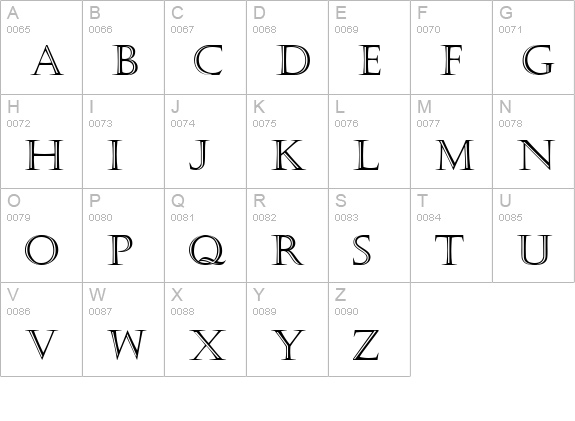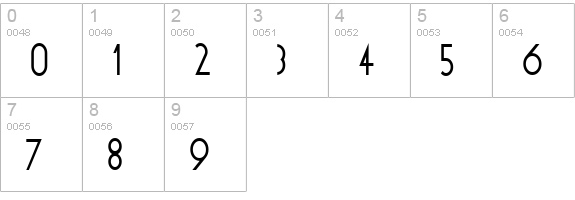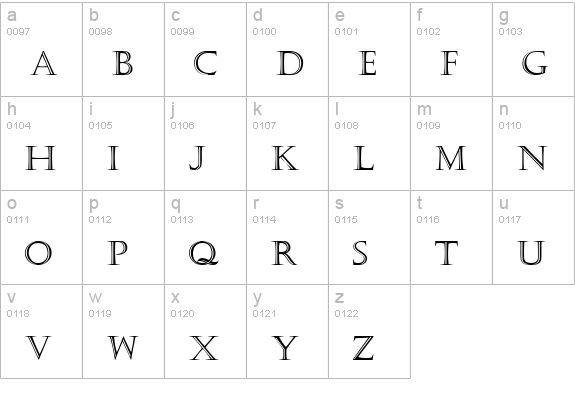
Outline 4 Normal Font Details
Outline 4 Normal is the standard, neutral variant in the Outline typeface family \xE2\x80\x94 well suited to general body text, paragraphs, and standard typographic work.
Outline 4 Normal font is a modern and stylish typeface that combines clean lines with a sleek outline design. This versatile font is perfect for a wide range of projects, from branding to editorial design. Its crisp and legible appearance makes it ideal for both digital and print applications. What's even better is that Outline 4 Normal font is available for free download at FontsMarket.com. This means you can easily access this high-quality font without any cost, making it a valuable addition to your font library. Don't miss out on this opportunity to enhance your designs with the timeless elegance of Outline 4 Normal font.